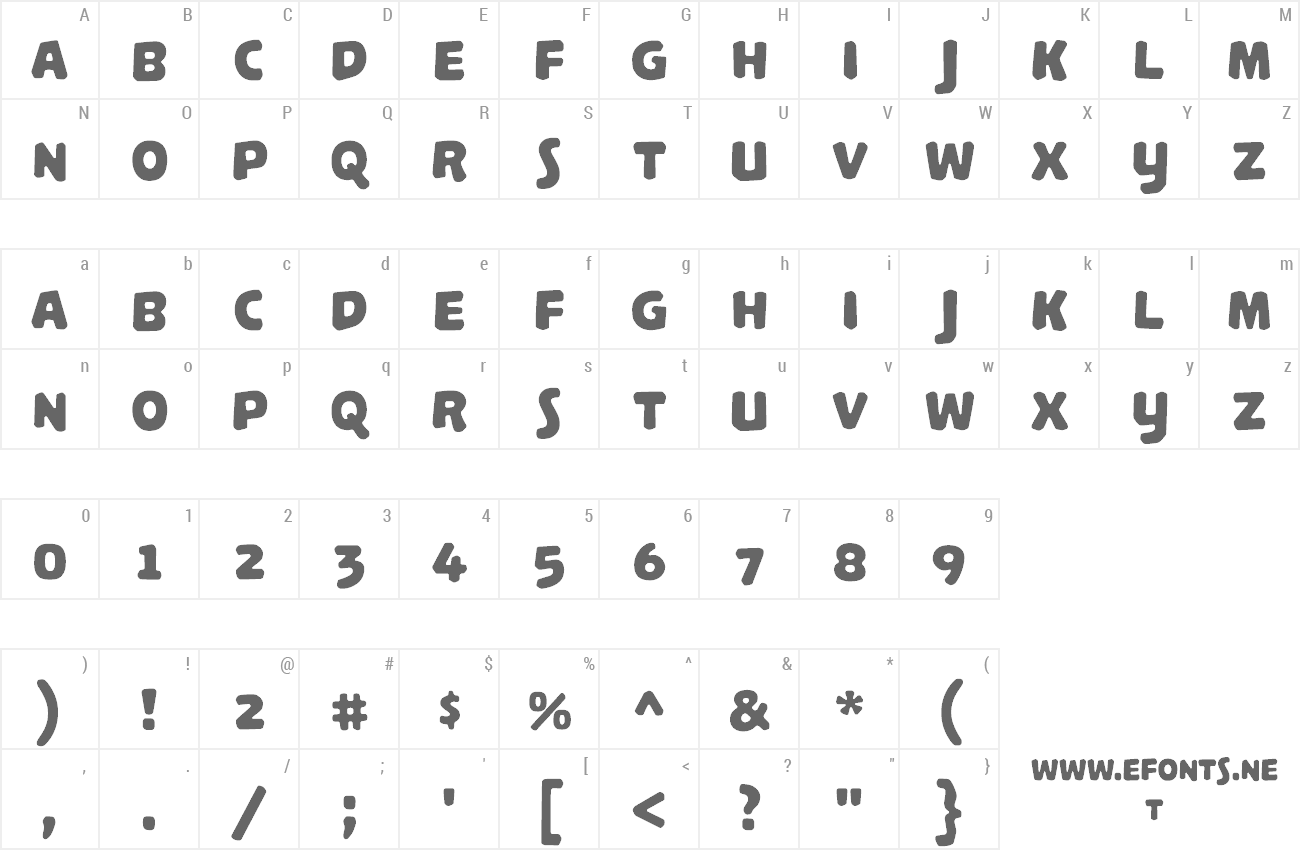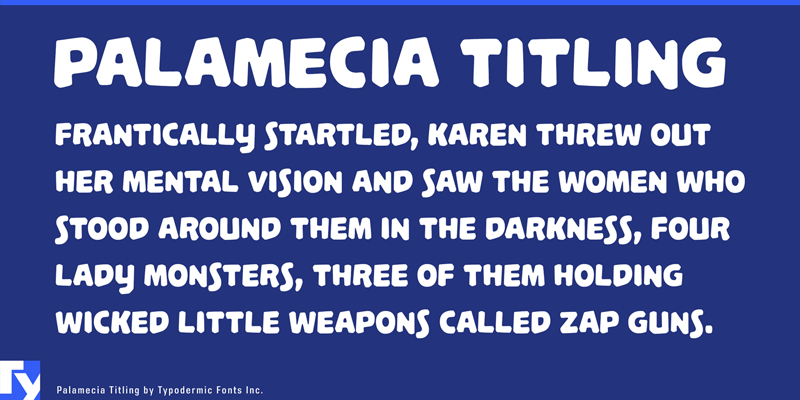
Palamecia was designed to endure scaling and blurring on various user interface displays. At first glance it looks like a cartoon typeface, which was the goal, but the design of each character was informed by the effects of pixel scaling on legibility. Rather than using pen strokes as a base for each letter's design, Palamecia's shapes were designed as cutout silhouettes which were gradually whittled and chipped away. If you require lowercase, check out the regular Palamecia typeface. http://typodermicfonts.com/palamecia This font includes a license that allows free commercial use: sometimes referred to as a desktop license. This allows you to install the font on a computer and use it to create posters, web graphics, game graphics, t-shirts, videos, signs, logos and more. Read the license agreement for details. If you'd like to embed this font in an app, ebook, on the web or anything that's not covered by the desktop license agreement, visit the link below. You'll find distributors who offer different types of licenses or you can contact me for help. http://typodermicfonts.com/palamecia-titling |